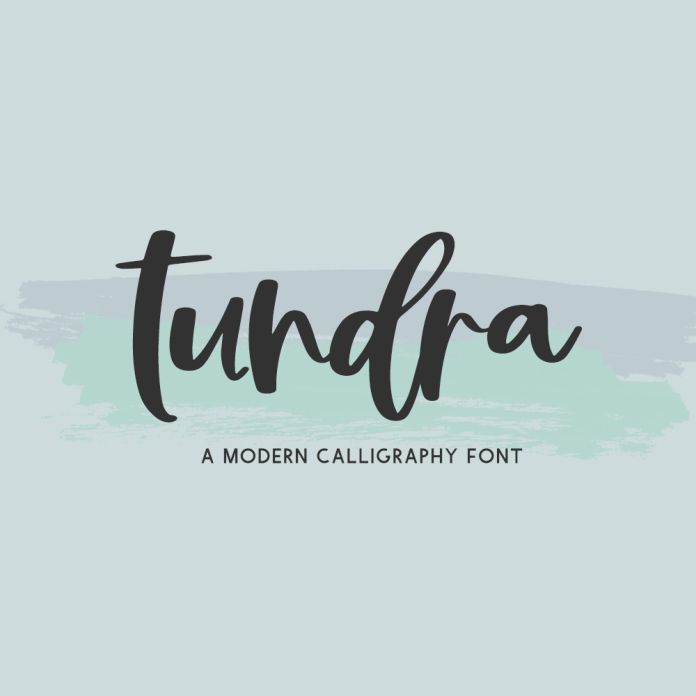
Introducing Tundra, a bouncy modern calligraphy script perfect for crafting & cute farmhouse projects.
Tundra is best for:
- using as a reference to teach handwriting & penmanship skills with a bit of bouncy modern calligraphy flair